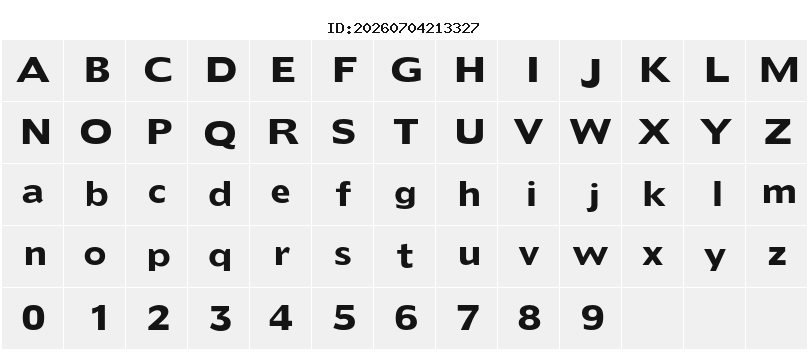
Doric LT Std Bold Preview
• Font Name: Doric LT Std Bold
• Full Font Name: DoricLTStd-Bold
• PostScript Name: DoricLTStd-Bold
• Designer: Unknown
About Doric LT Std Bold.otf
Doric LT Std Bold.otf is a modern, elegant sans-serif font designed for ultimate readability and visual harmony. Perfect for branding, headlines, web design, and print materials.